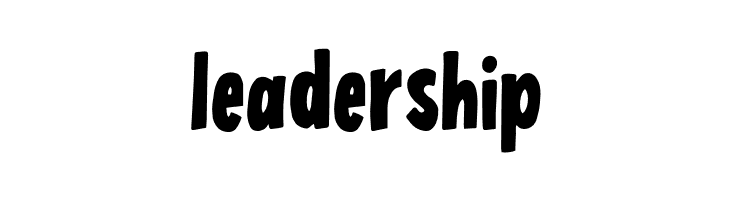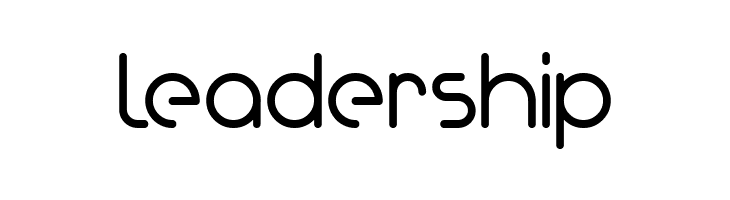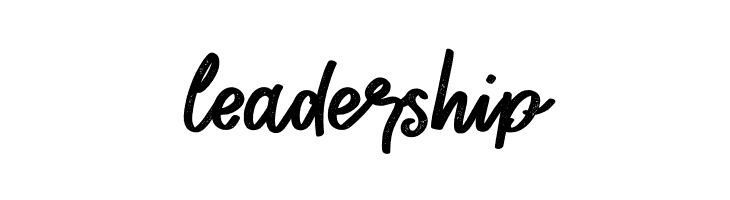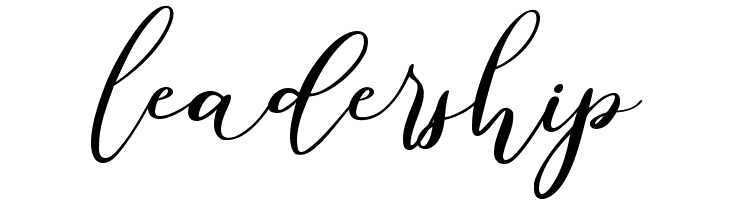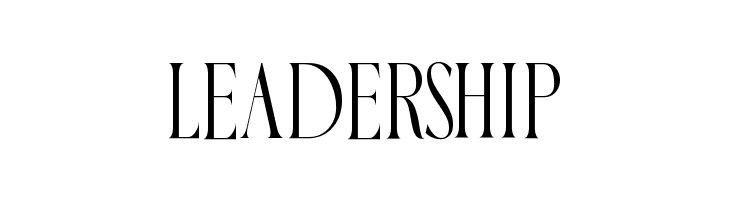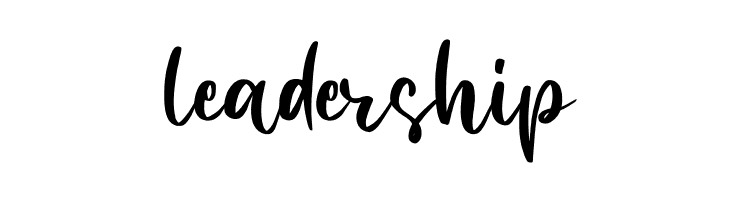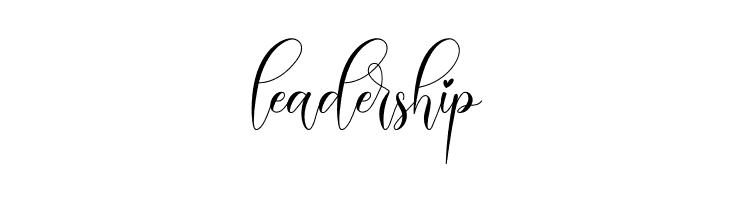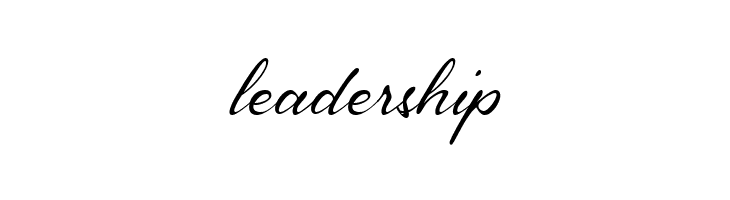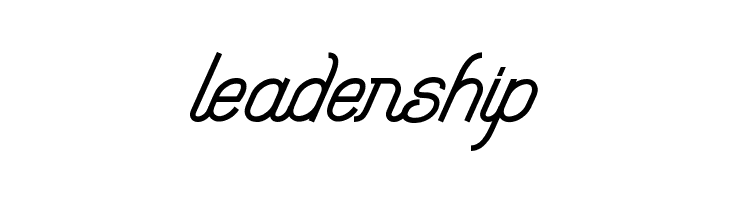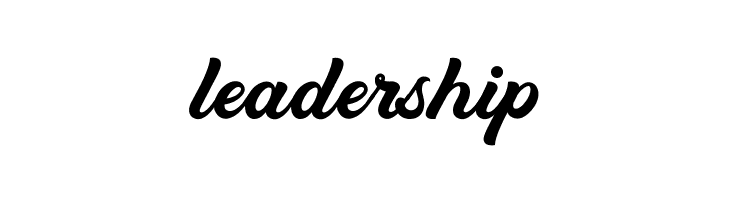
A modern, elegant font with high contrast and flowing, cursive-like strokes.
A modern, geometric font with rounded edges and a futuristic style.
A modern, geometric font with rounded edges and a sleek design.
A modern, italicized font with smooth, rounded characters and a dynamic style.
A graceful script font with flowing, connected strokes and elegant curves.
A playful, bold font with rounded edges and a friendly style.
A modern sans-serif font with clean lines and geometric structure.
An elegant, high-contrast font with elongated letterforms and a luxurious style.
A high-contrast, elegant typeface with refined serifs and a luxurious style.
A lively handwritten font with fluid, natural strokes and a playful aesthetic.
A playful, handwritten font with bold, rounded characters.
An elegant script font with flowing, cursive letterforms and intricate details.
A bold, three-dimensional font with a modern and decorative style.
A fluid and elegant handwritten font with smooth, continuous strokes.
A modern sans-serif font with clean lines and balanced proportions.
An elegant script font with decorative swashes and smooth, connected lowercase letters.
A playful, bold handwritten font with rounded, uniform letterforms.
A bold, flowing script font with interconnected characters and elegant curves.
A bold, expressive script font with high contrast and flowing cursive letters.
A bold, dynamic handwritten font with flowing, interconnected strokes.
An elegant, flowing script font with bold, expressive strokes.
A lively, flowing handwritten script with elegant cursive strokes.
A bold, handwritten font with a playful and casual style.
A bold, textured script font with a hand-drawn appearance.
A bold, cursive font with a playful, vintage charm.
A dynamic, cursive italic font with bold, flowing strokes.
A lively handwritten font with bold, expressive strokes and a modern, playful style.
A flowing, cursive font with elegant curves and a handwritten aesthetic.
A bold, angular font with a futuristic and aggressive style.
A lively and expressive handwritten font with fluid strokes and artistic flair.
An elegant, flowing script font with interconnected letters and artistic flair.
A lively and expressive handwritten font with flowing, interconnected letterforms.
A playful, handwritten font with dynamic and fluid strokes.
An elegant and flowing script font with cursive, connected letterforms.